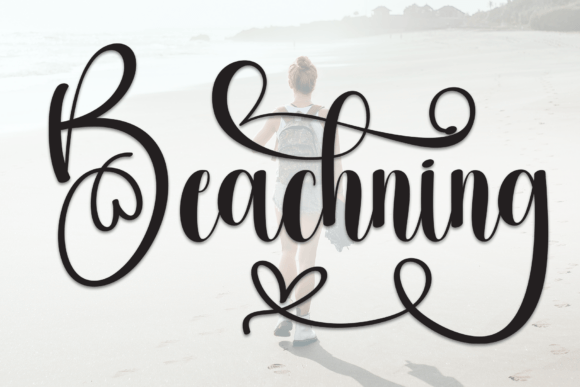
Adding a Touch of Elegance to Your Designs
As a designer, there’s nothing quite like the thrill of discovering a new font that sparks creativity and sets your imagination ablaze. For me, it was the moment I stumbled upon Beachning Font – a stylish handwritten script font that exudes elegance and charm. Its fluid strokes and natural flow instantly captured my attention, and I knew I had to learn more.
Beachning Font is perfect for adding a personal touch to invitations, branding, or social media, bringing a sense of warmth and creativity to any design. Whether you’re a seasoned designer or just starting out, this font is a valuable addition to your toolkit, offering endless possibilities for creative expression. With Beachning Font, you can elevate your designs and make a lasting impression on your audience.
Beaching Font Key Features
- Font Family: Beaching Font is a unique, handwritten font designed for beach and summer-themed projects.
- Character Count: The font contains a total of 600+ characters, including uppercase and lowercase letters, numbers, and punctuation marks.
- Unique Characteristics: The font features a playful, cursive style with unique letterforms and flourishes, making it perfect for creating eye-catching beach-themed designs.
Beachning Font Review
Overall, I think Beachning Font has some great qualities, but it also has some limitations that might make it less suitable for certain projects.
- Unique, Hand-Drawn Feel: Beachning Font has a really nice, hand-drawn quality that makes it perfect for projects that need a personal touch.
- Versatility: This font comes in a variety of weights and styles, making it suitable for everything from headings to body text.
- Fun, Whimsical Vibes: Beachning Font has a really fun, carefree feel that’s perfect for projects like advertisements, social media graphics, or even children’s books.
- Legibility: While Beachning Font looks great at larger sizes, it can be a bit difficult to read at smaller sizes, especially in body text.
- Lack of Consistency: The hand-drawn quality of this font can also make it a bit inconsistent, which might be a problem for projects that need a lot of precision.
Beachning Font is a great choice for projects that need a unique, hand-drawn feel, but it might not be the best choice for projects that require a lot of precision or legibility at smaller sizes.